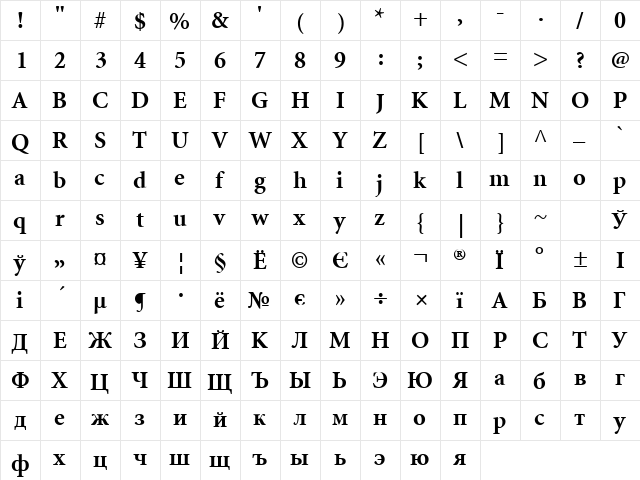
Miniature Bold
Design Context for Miniature Typeface
Miniature is a composed and adaptable typeface that performs quietly and consistently across a wide range of design contexts. Its bold stroke weight gives it real presence on the page.